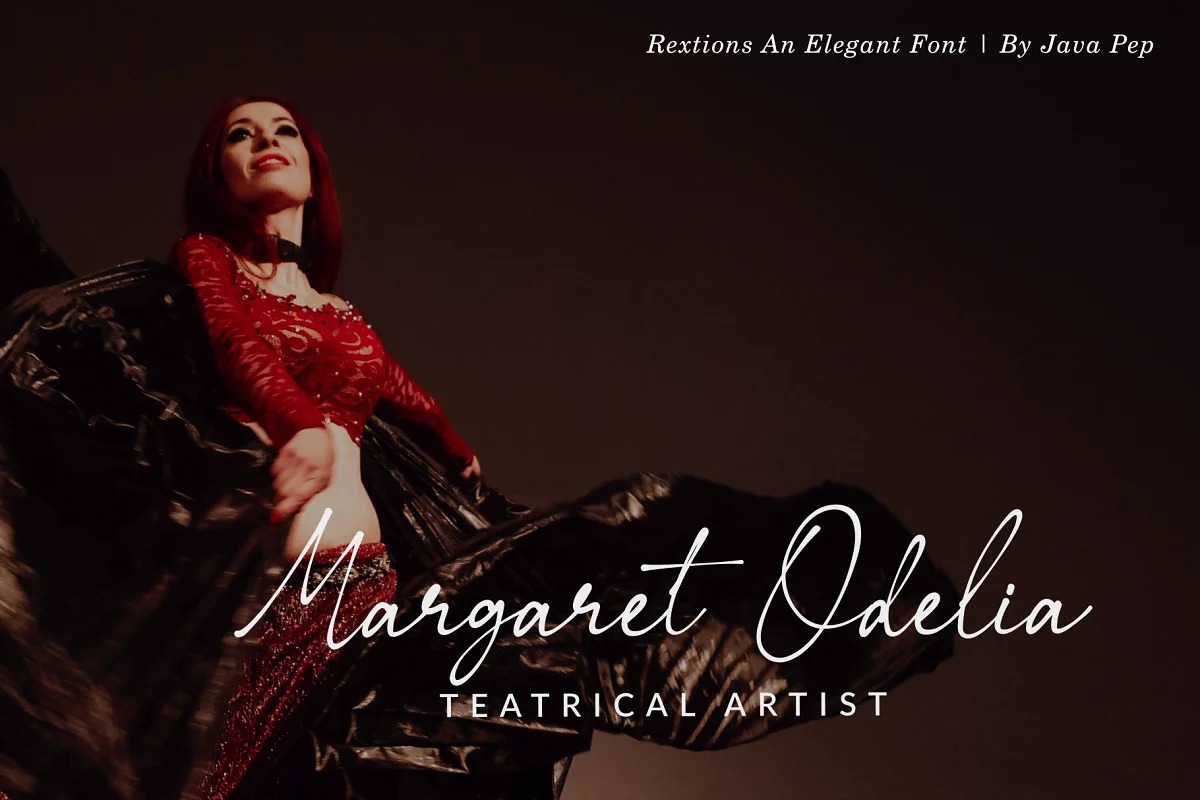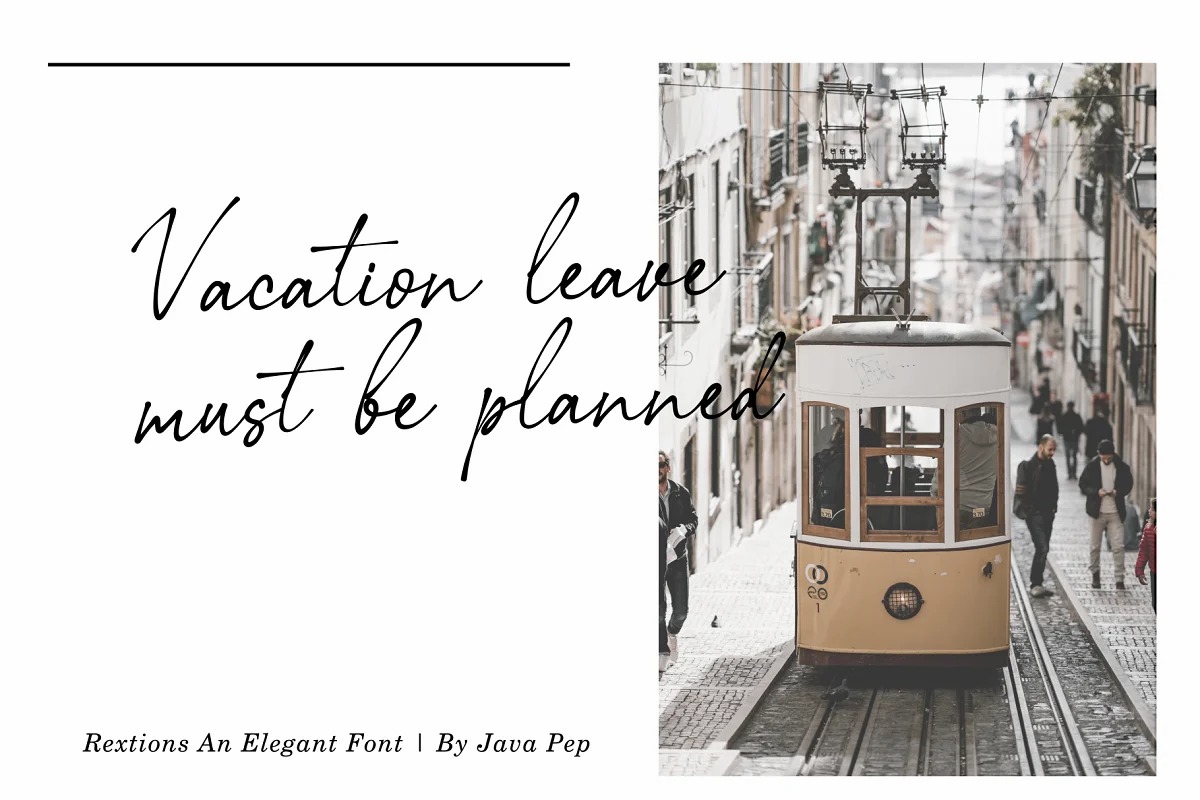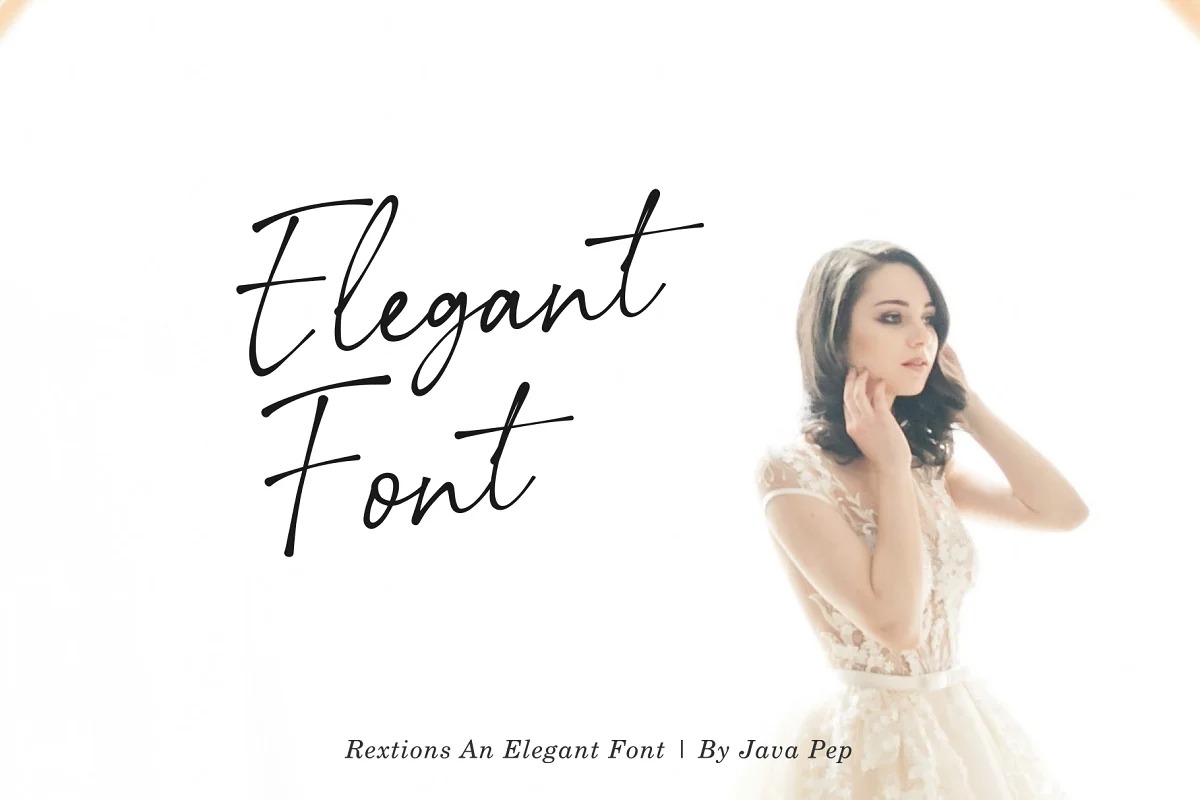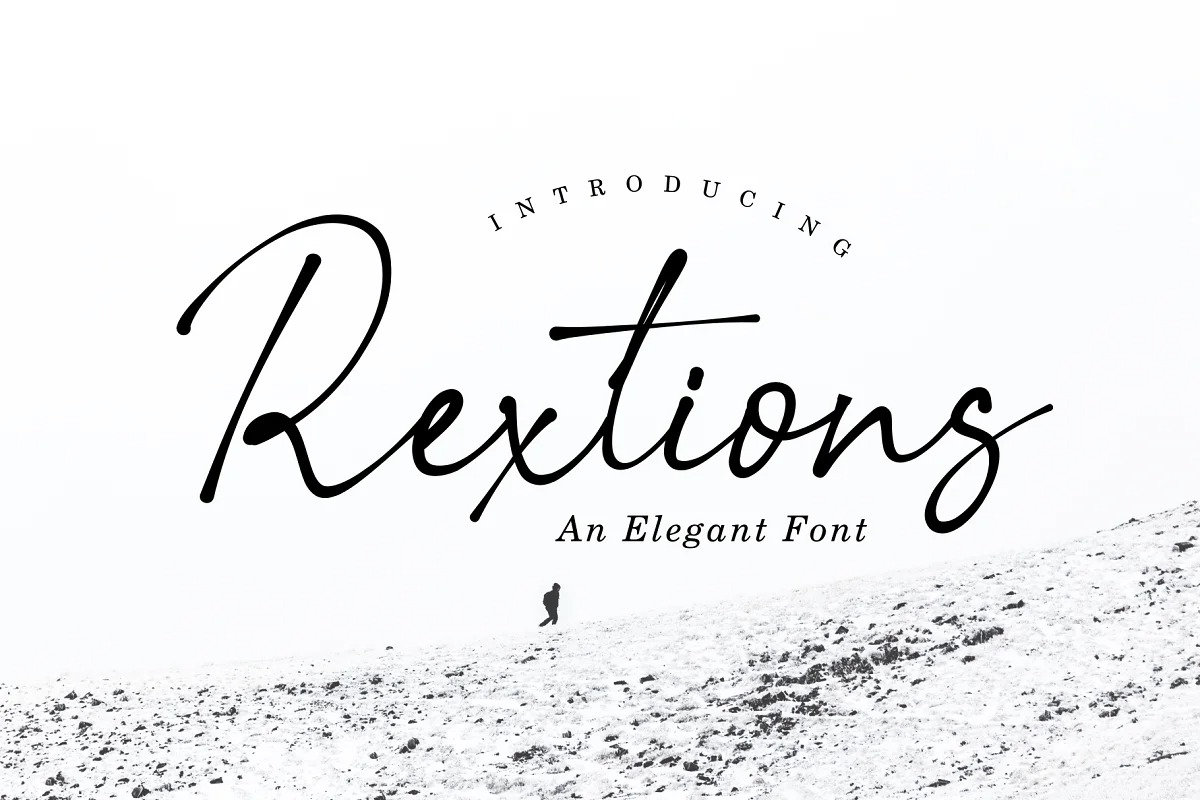
Rextions Font
Rextions Script Font is a free-flowing, modern hand-drawn script. With a spontaneous feel and lots of alternates, it’s a perfect typeface for your branding projects or anywhere you need a fresh hand-drawn look. Every stroke and shape create with natural handwriting so that the elegant feel is more pronounced and prominent. Rextions an elegant font is perfect for your next design project.